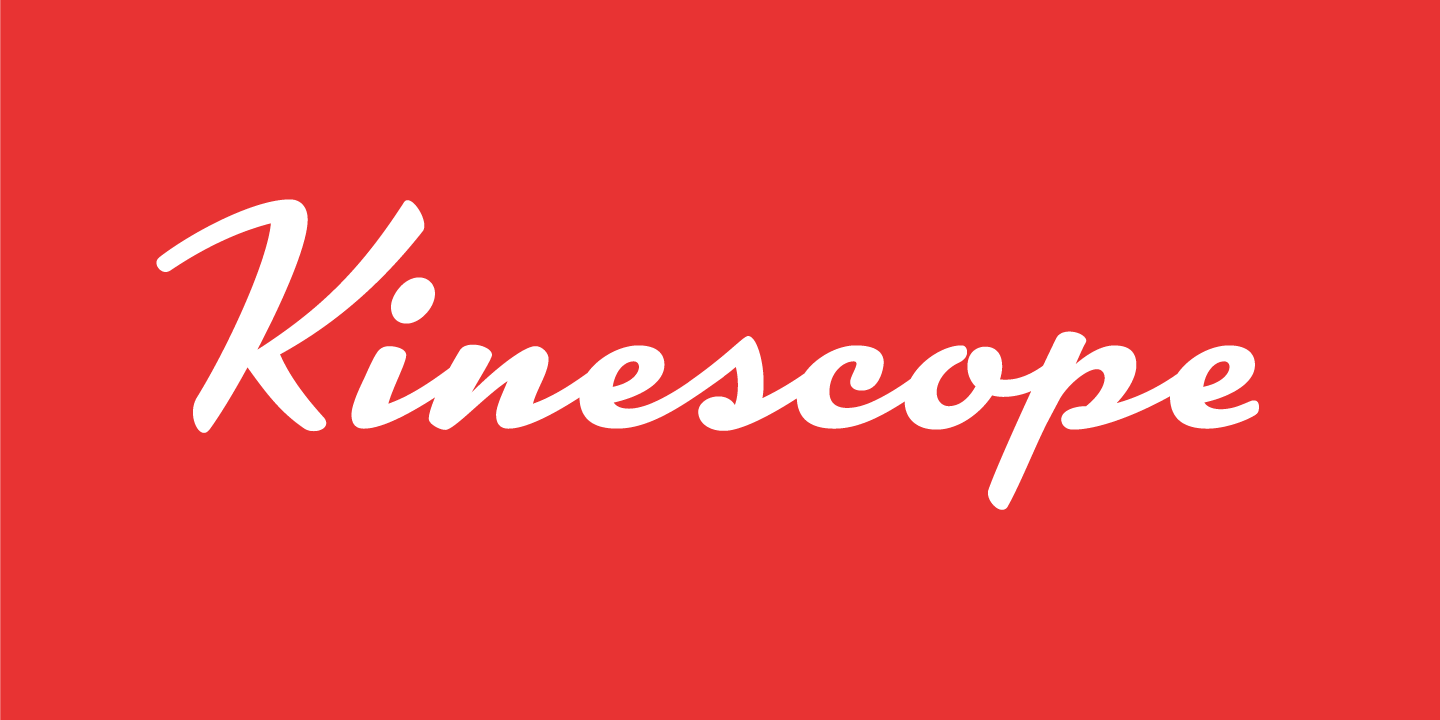
About the Kinescope Font
About Kinescope Font Family Kinescope is a dashing 1940s-style brush script, It was inspired by hand-lettered titles in Fleischer Brothers’ Superman cartoon series, This font features advanced OpenType magic to automatically choose the most aesthetically pleasing letter shapes as you type as well as extended language support, (Adobe Creative Suite or QuarkXPress 7